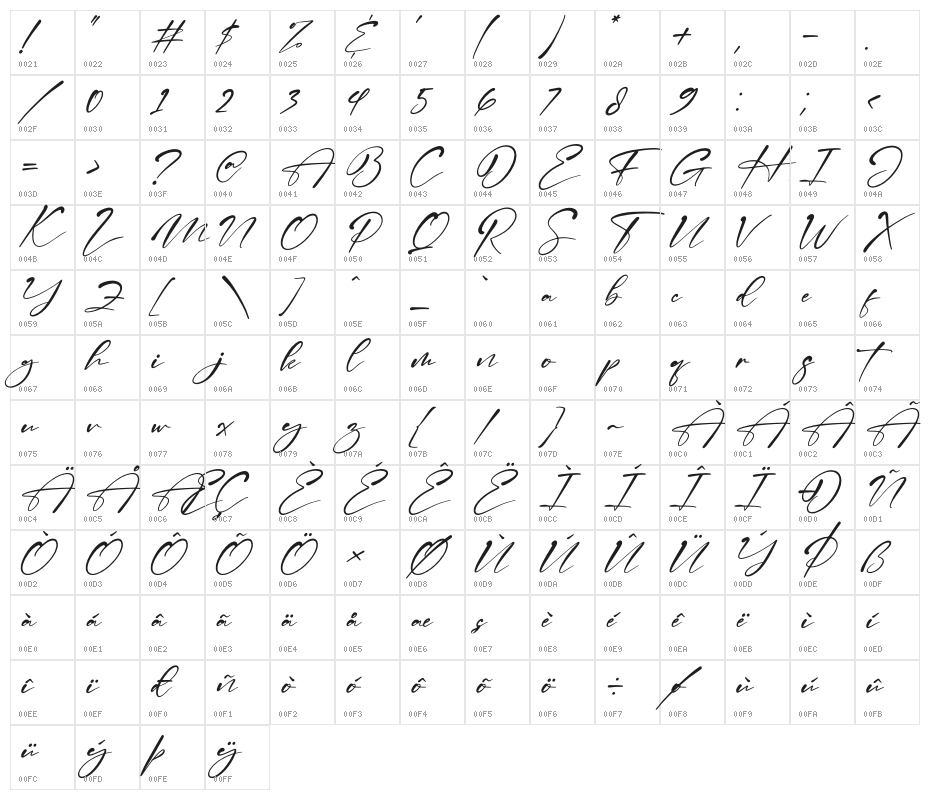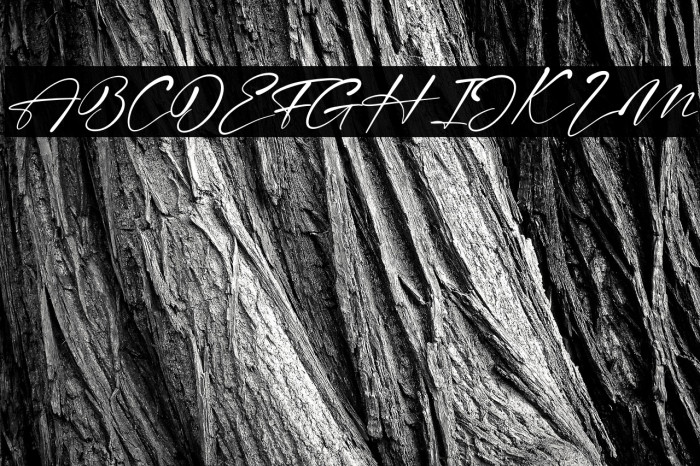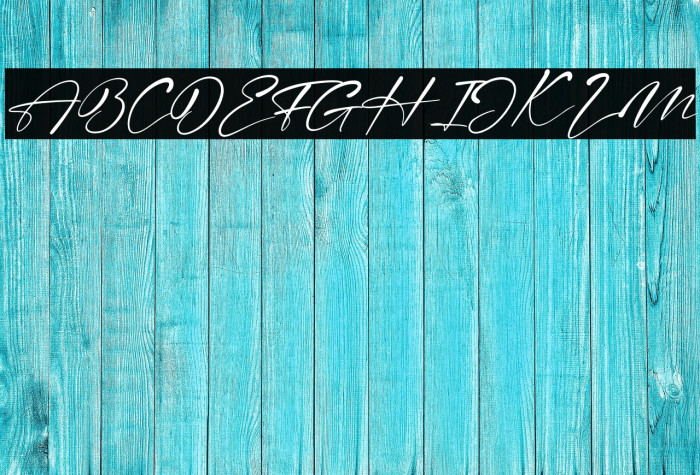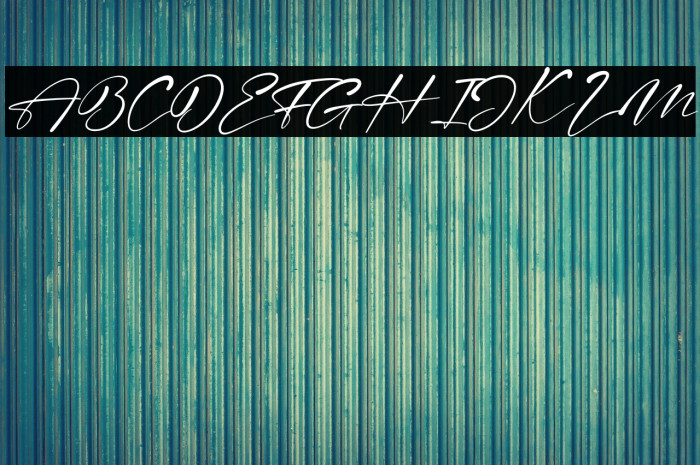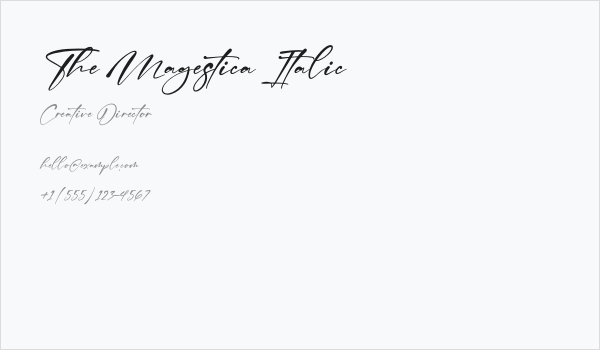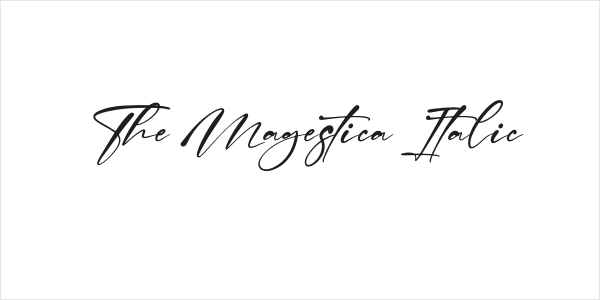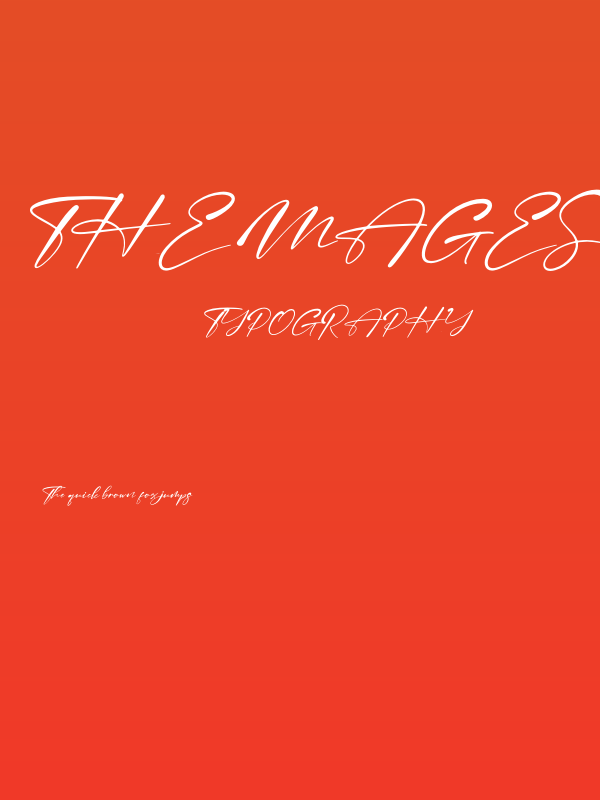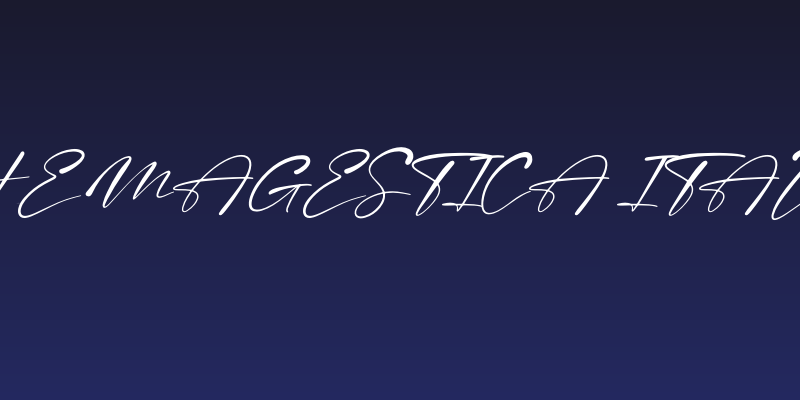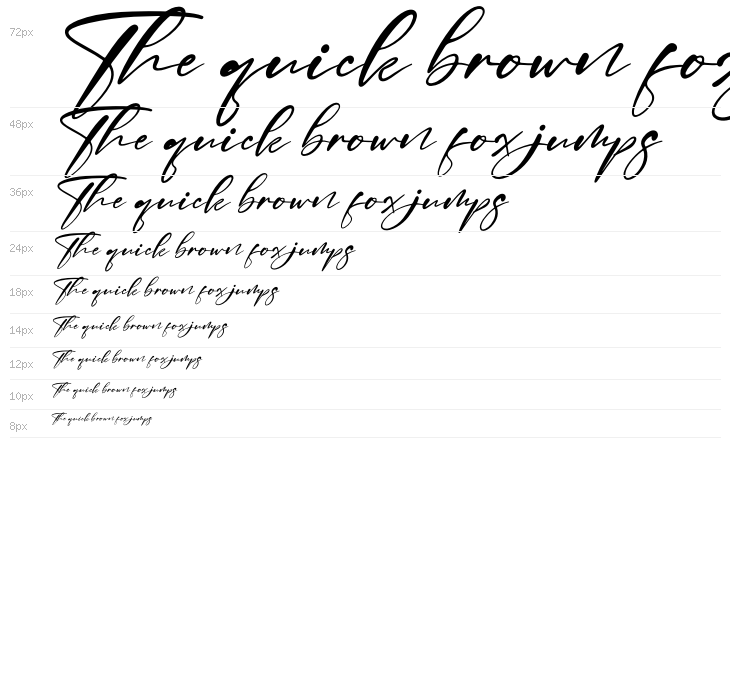
The Magestica Italic Font
The Magestica Italic Description
This elegant script font features a flowing, cursive style with a modern twist. The characters are connected, creating a seamless and fluid appearance. The uppercase letters are tall and graceful, while the lowercase letters maintain a consistent, smooth flow. The numbers and special characters complement the overall aesthetic, adding a touch of sophistication. The strokes vary in thickness, providing a dynamic contrast that enhances readability while maintaining an artistic flair. This font exudes a sense of elegance and creativity, making it suitable for a variety of design projects.
| Proposed Projects | Ideal for wedding invitations, branding, greeting cards, and elegant packaging designs. |